Langara College
Langara College (Vancouver, B.C. Canada), in collaboration with the design agency Twice Brand and the Musqueam people of Canada First Nations, commissioned TypeTogether to extend Adelle to support Halkomelem.
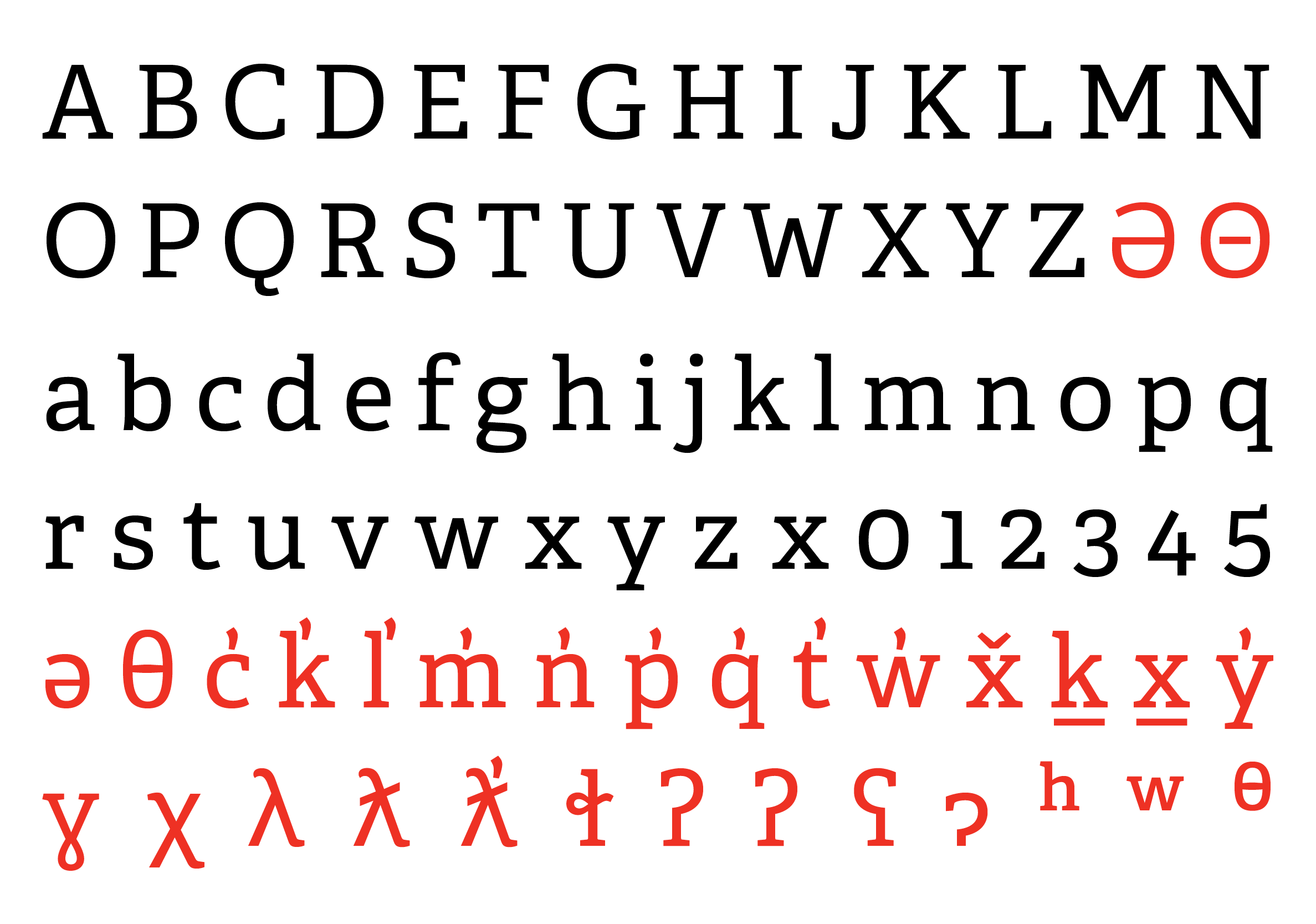
Adelle Regular with additional glyphs (red) to support the Halkomelem language.
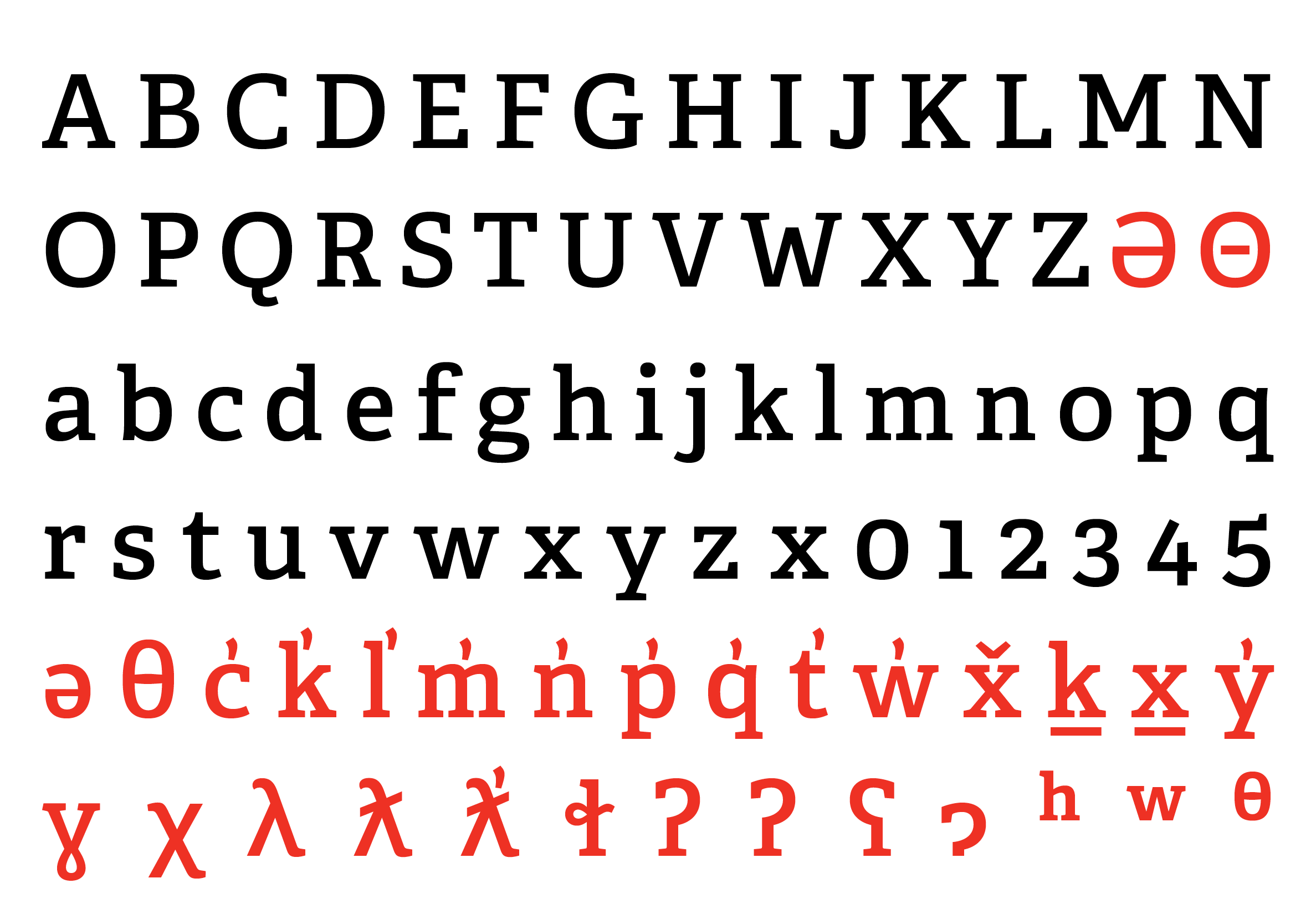
Adelle Semibold with additional glyphs (red) to support the Halkomelem language.
Welcoming more than 21,000 students annually, the Langara College campus is situated in Musqueam — one of the indigenous unceded territories of Canada and which used to be a village. In appreciation of the the strong ties between the college and the Musqueam people, the name snəw̓eyəɬ leləm̓, which means ‘house of teaching’, was given to Langara in an official tribal naming ceremony.
Their language, Halkomelem, is a combination of three related dialects spoken on Vancouver Island, the Lower Mainland, and parts of the Fraser Canyon by indigenous communities. Downriver Halkomelem is the dialect spoken by Musqueam, and the basis of the work done on this project.
At this occasion a refreshed brand identity, a set of guidelines, and templates was initiated to incorporate the new given name. As one of the first steps, TypeTogether developed the new logo for Langara in close collaboration with the Musqueam Language Office. This required us to design a set of special glyphs, of which the ‘looped l’ presented a particular design challenge. At a later stage the full alphabet necessary for Halkomelem was designed in two styles of Adelle for the college and the Musqueam community.
Vanessa Campbell of the Musqueam Language Office said, “This collaboration with Langara and TypeTogether is an opportunity to share our culture and language with more people in Vancouver. It also helps to revitalize our language by giving us additional tools to share it with others.”
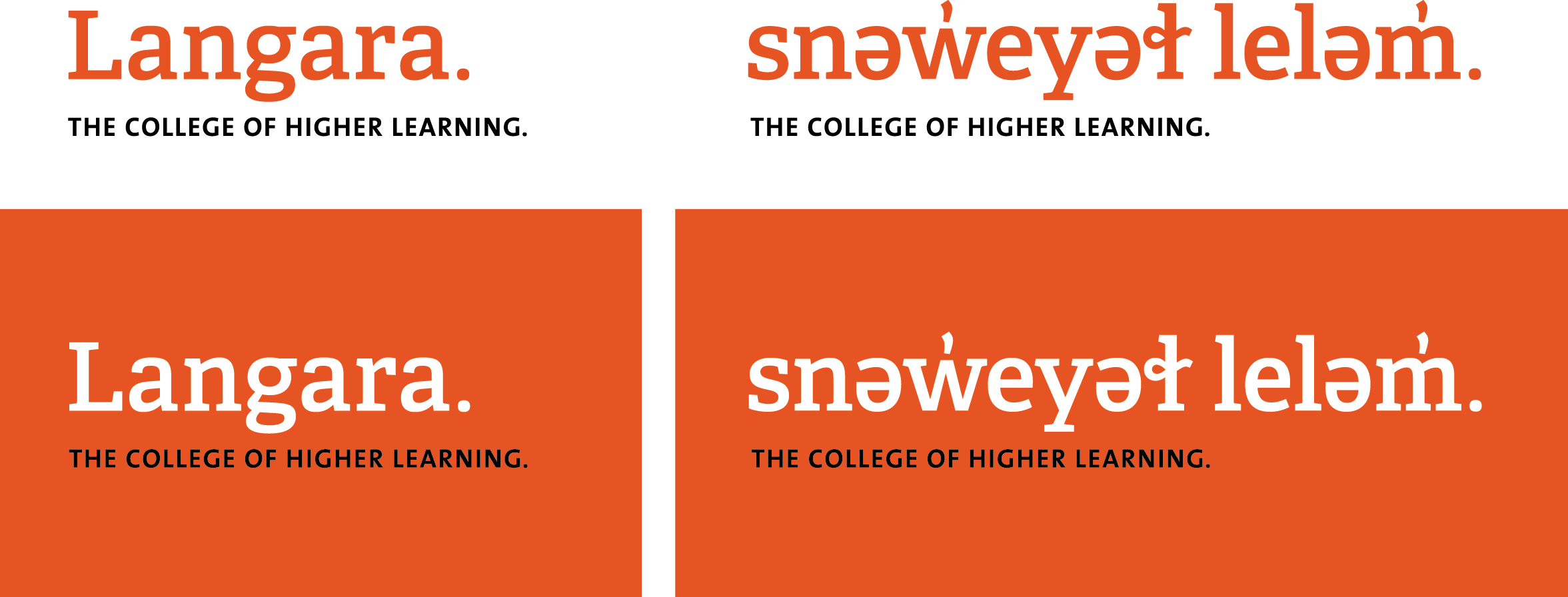
Brand of the Langara college with new given name by the Musqueam First Nations, which means ‘house of teachings’ — version from 2017.
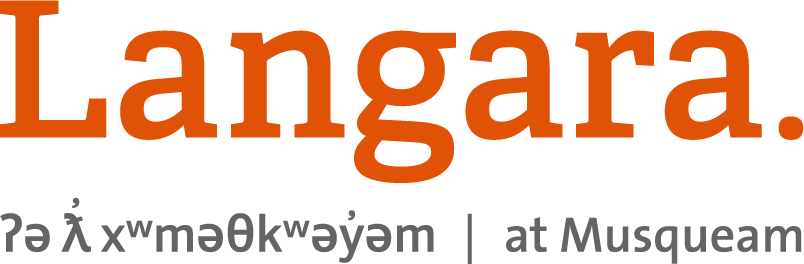
New logotype of the Langara college — version from 2025.
Halkomelem alphabet.
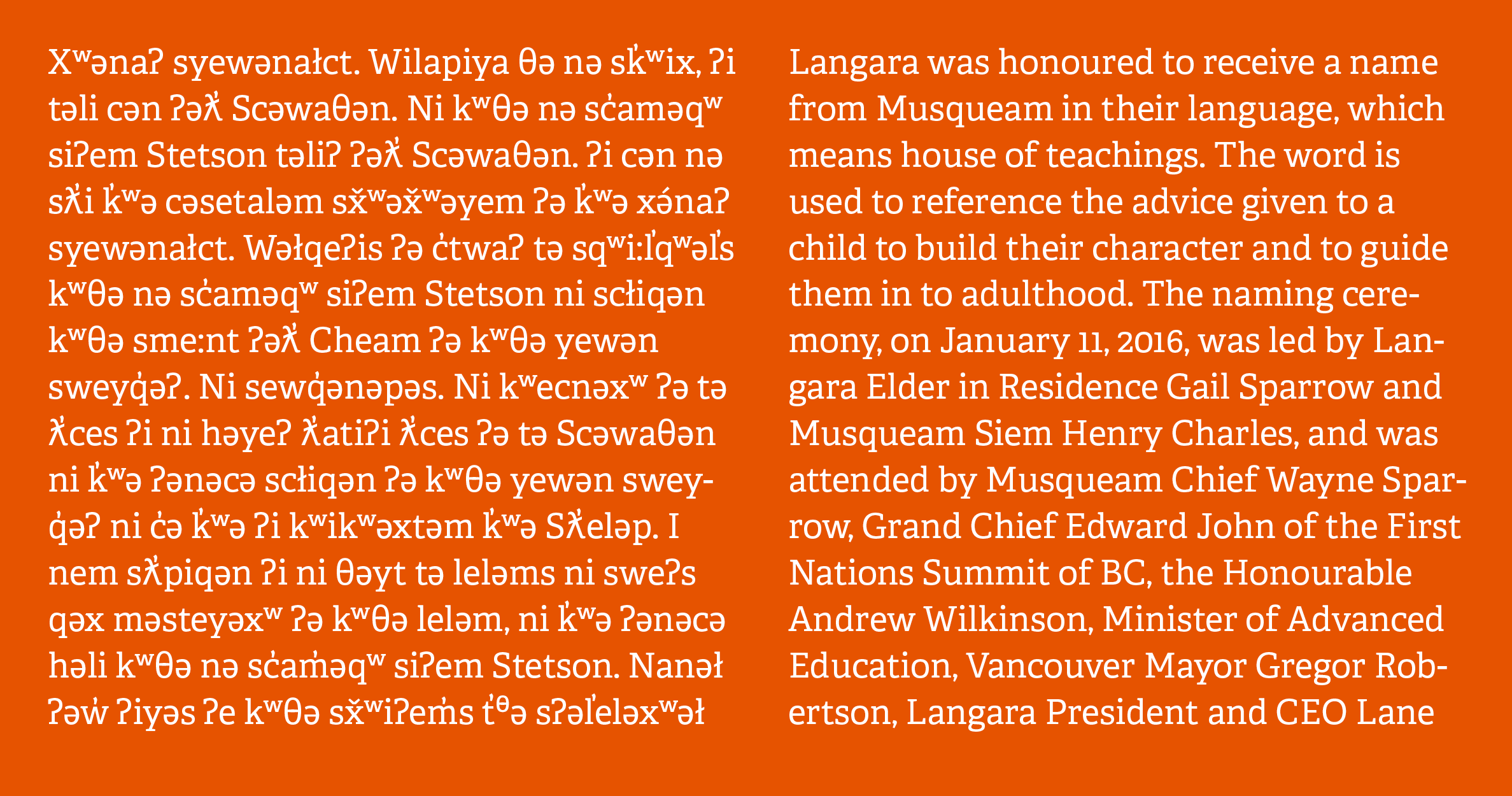
Sample of text setting of Halkomelem and English.
Type is the visual expression of culture and information which helps to promote diversity, and is therefore especially important for minority languages to keep their heritage alive. The language extension for Langara was a fascinating project for us, both conceptually and from a type design point of view. We are thrilled to have contributed to this endeavour.
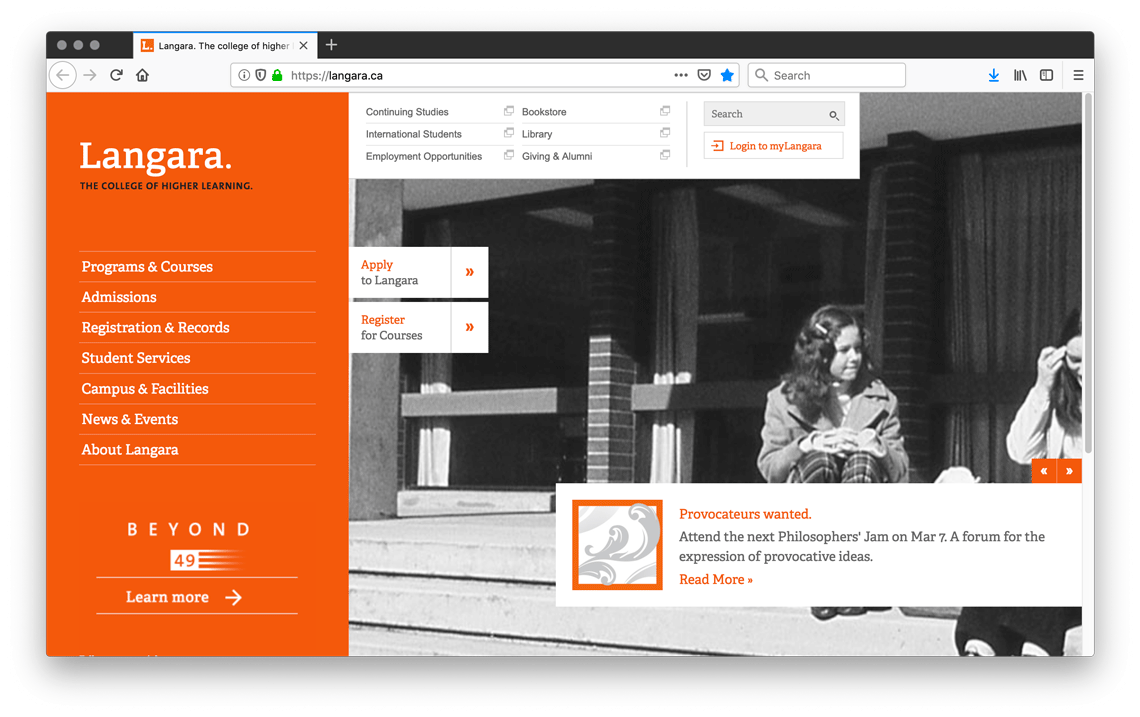
Adelle has been used as the college's brand font for the past few years.